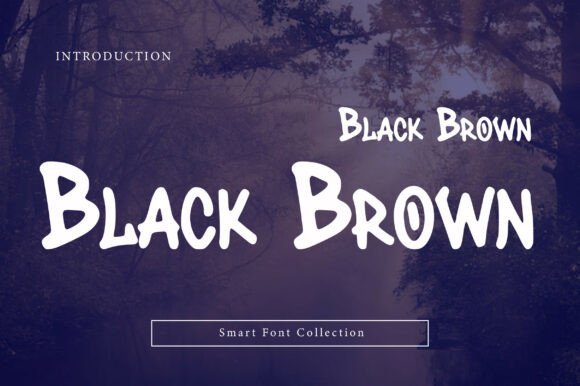
Introduction to Black Brown Font
Black Brown is a bold, casual handwritten display font with a raw marker/brush feel and energetic strokes.
The Black Brown font is a powerhouse of character and organic texture This Black Brown typeface features heavy, expressive strokes that mimic the look of a thick marker or a brush dipped in ink.
Key Features of Black Brown Font